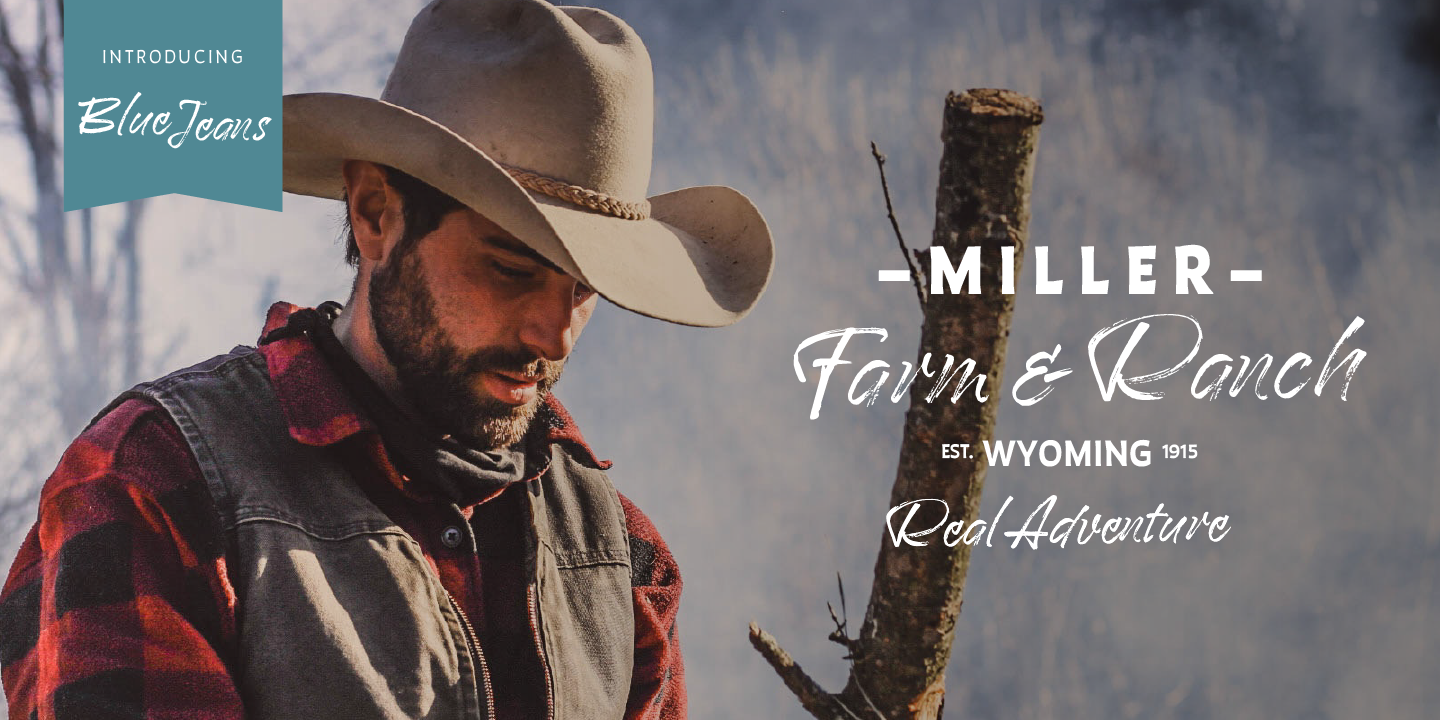
Embrace casual sophistication with Blue Jeans Font Free Download, a relaxed yet refined typeface that perfectly captures the essence of comfortable style and timeless appeal. This versatile font brings approachable elegance to any design project, making it ideal for brands seeking authentic connection with their audiences.
Blue Jeans Font features friendly letterforms with subtle vintage touches that evoke feelings of comfort, reliability, and genuine authenticity. The font excels in lifestyle branding, casual dining establishments, denim and fashion brands, family-oriented businesses, and marketing materials targeting everyday consumers. Its warm, inviting character creates instant rapport while maintaining professional credibility.
This adaptable typeface performs beautifully across various applications, from social media graphics to packaging design. Whether you're creating website headers, designing promotional materials, developing brand identities, or crafting editorial layouts, Blue Jeans Font delivers consistent charm and readability that resonates with diverse audiences.
Creative professionals appreciate the Blue Jeans Font Free Download for its ability to communicate approachability without sacrificing sophistication. The font works exceptionally well for retail brands, community organizations, food and beverage companies, and any business wanting to project friendly professionalism through thoughtful typography choices.
The comprehensive Blue Jeans Font package includes multiple weights and styles, offering designers complete flexibility for creating cohesive visual systems. Each character demonstrates careful attention to detail, ensuring optimal performance across all mediums from large-scale signage to small-format applications.
Perfect for graphic designers, brand developers, and marketing professionals, this font bridges casual appeal with commercial viability. Blue Jeans Font supports extensive character sets, making it suitable for international projects and diverse content requirements.